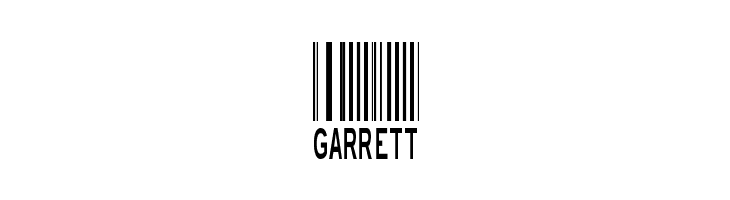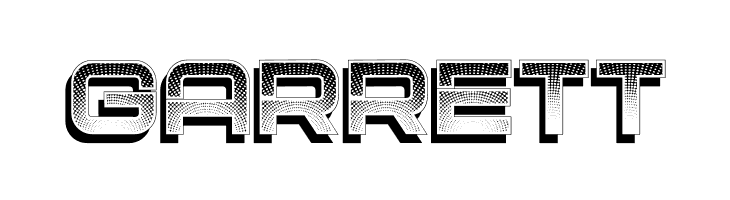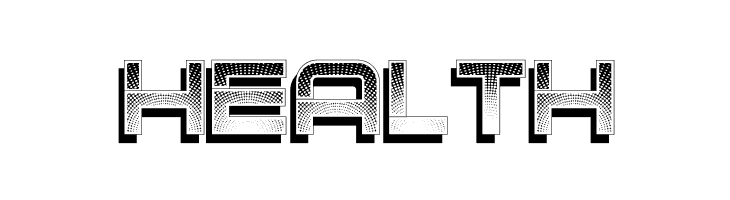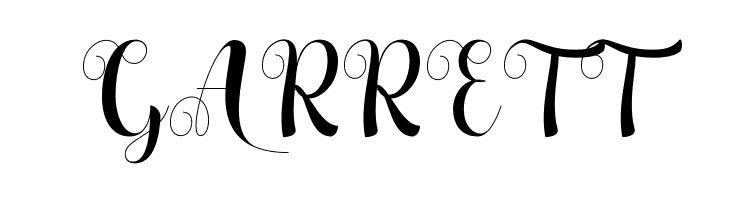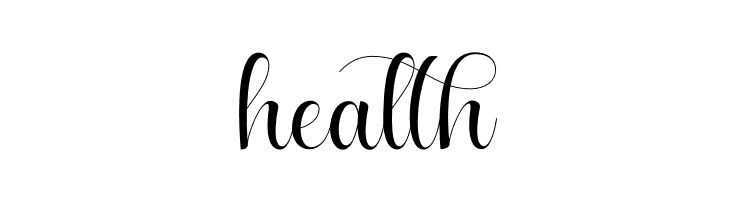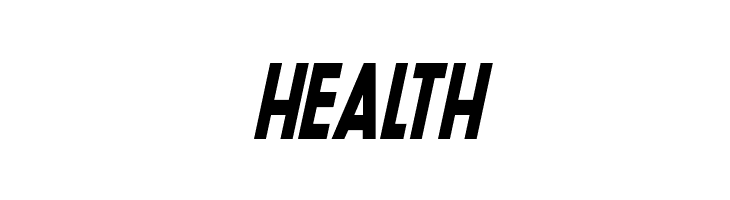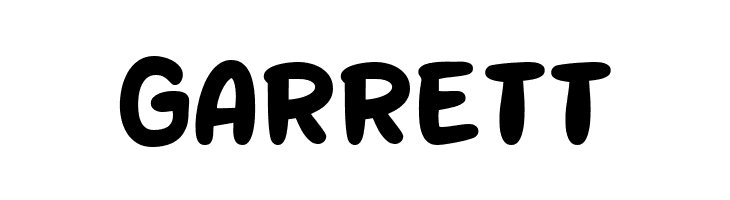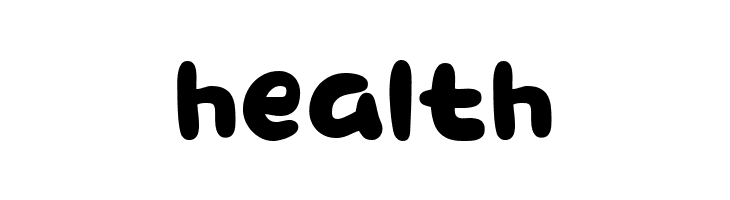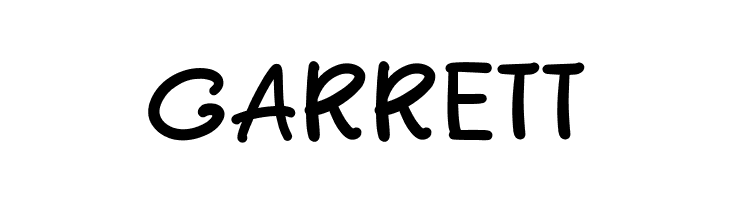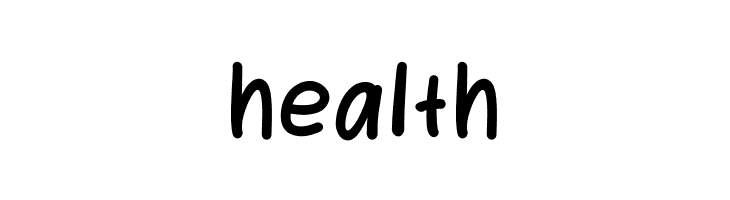
A barcode-inspired font with a modern, industrial aesthetic.
Bold, playful handwritten font.
A flowing, cursive font with elegant, interconnected characters.
A playful, bold font with rounded, bubbly characters.
A bold, decorative font with a geometric structure and textured interior pattern.
A playful, handwritten font with rounded, consistent strokes and a friendly vibe.
An elegant script font with flowing cursive characters and intricate swashes.
A bold, geometric font with strong, angular lines and a modern comic book style.